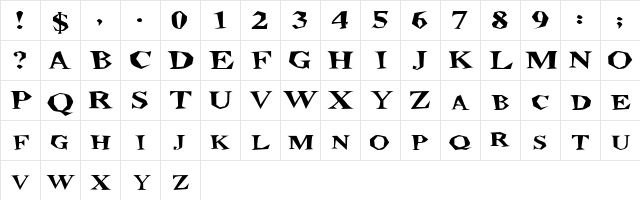
StegosaurusExtended Regular Font Preview
StegosaurusExtended Regular
Design Context for StegosaurusExtended Typeface
StegosaurusExtended is a composed and adaptable typeface that performs quietly and consistently across a wide range of design contexts.